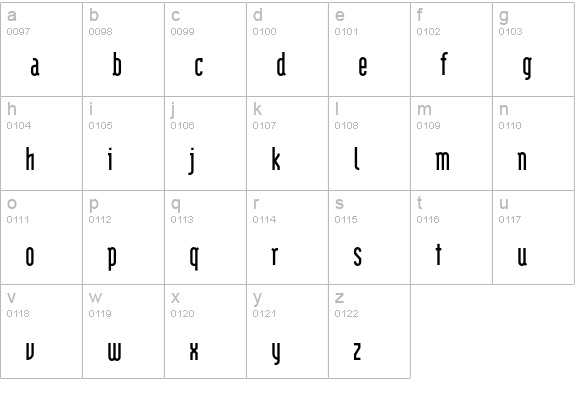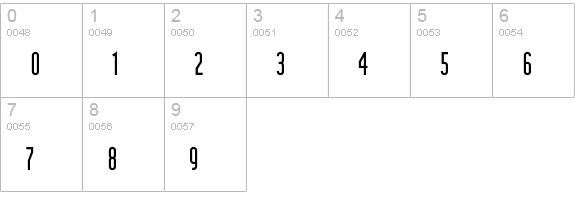
ModularBold Font Details
ModularBold is a sleek and modern font that exudes professionalism and sophistication. With its geometric shapes and bold lines, this typeface is perfect for making a strong statement in your designs. The versatility of ModularBold allows it to be used in a wide range of projects, from branding to editorial design. What sets ModularBold apart is not just its striking appearance, but also the fact that it is available for free download at FontsMarket.com. Yes, you read that right - this high-quality font can be yours at no cost, making it a valuable addition to your font library without breaking the bank. Whether you're working on a logo, poster, website, or any other design project, ModularBold is sure to elevate your work and leave a lasting impression. Download it today from FontsMarket.com and unleash the power of this exceptional font in your creative endeavors.